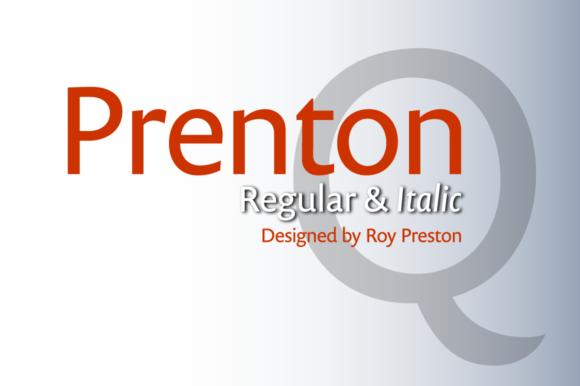
**Calling all typography enthusiasts!**
Prepare to be mesmerized by Prenton Regular and Thin – the sans serif font that embodies both elegance and functionality.
With its clean lines and crisp edges, Prenton is the perfect choice for designers seeking a font that effortlessly elevates their creations. Its versatility extends from captivating headlines to engaging body text, ensuring your message resonates with unparalleled clarity.
**Unleash your creative genius**
Whether you're crafting stunning posters, captivating website designs, or impactful social media graphics, Prenton's sleek aesthetic adds an air of sophistication and professionalism to every project. Its balanced proportions and open forms enhance readability, making it ideal for extended blocks of text, inviting readers to immerse themselves in your content.
**Experience the power of precision**
Crafted by the renowned BluHead Studio, Prenton boasts exceptional precision, making it the ultimate choice for text recognition. Its meticulously designed characters ensure seamless integration with OCR software, guaranteeing accurate and efficient extraction of information.
**Elevate your designs to new heights**
Indulge in the allure of Prenton today and witness the transformative power it brings to your design endeavors. Its timeless appeal and versatility will captivate your audience, leaving an unforgettable impression that lingers long after the page is turned.